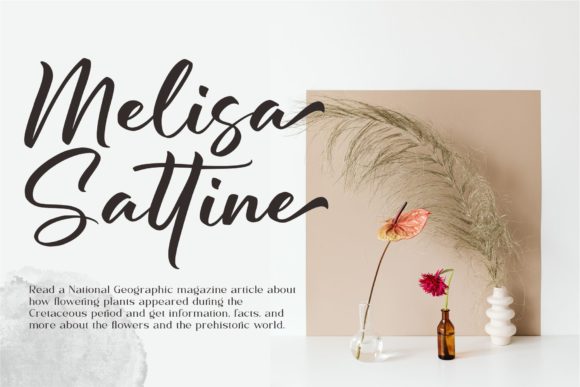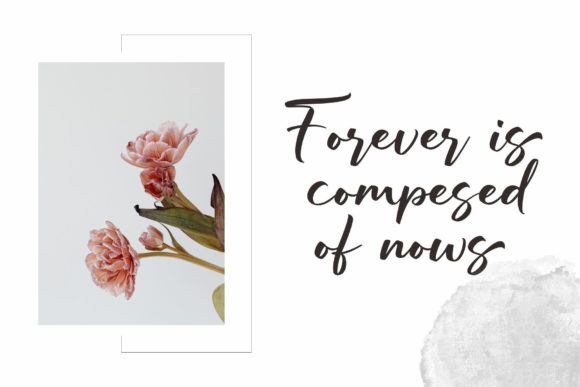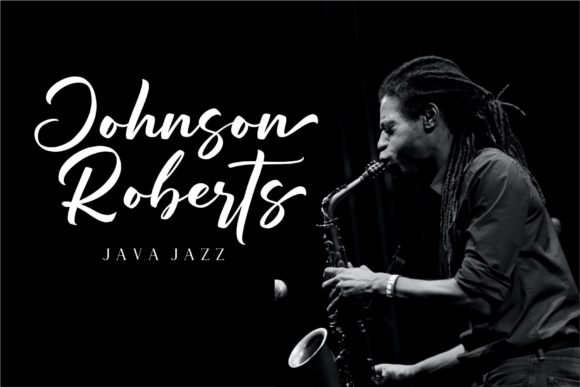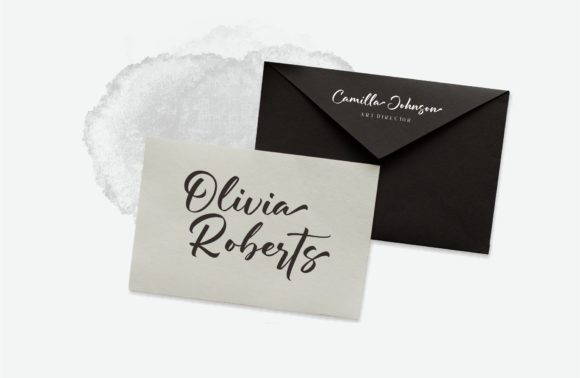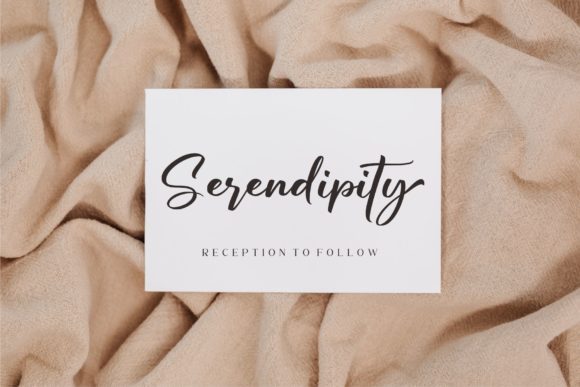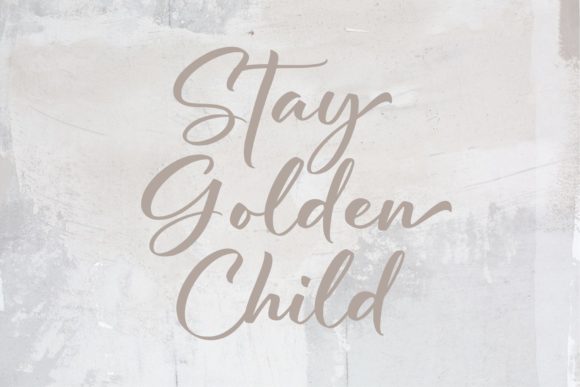
Discover the Enchanting Berdiolla Font: Elevate Your Designs with a Touch of Romance
In the world of typography, few fonts manage to capture the essence of elegance and romance as effortlessly as the Berdiolla Font. This enchanting handwritten script font has been making waves among designers and crafters alike, and for good reason. Its versatility, charm, and extensive range of applications make it an indispensable tool for anyone looking to add a touch of sophistication and whimsy to their projects.
The Charm of Berdiolla
Berdiolla is more than just a font; it’s an experience. Its handwritten nature gives it a personal and intimate feel, reminiscent of handwritten notes and love letters. This makes it perfect for a wide array of applications, from the creation of greeting cards and invitations to headlines and branding. The font’s ability to convey emotion and warmth is unparalleled, making it a favorite among designers who aim to create a connection with their audience.
One of the standout features of the Berdiolla Font is its incredible versatility. Whether you’re working on a romantic project, a creative branding campaign, or simply looking to add some flair to your digital content, Berdiolla adapts seamlessly. Its elegant strokes and beautiful swashes can elevate any design, making it stand out in a sea of more mundane typography.
Berdiolla Font comes with PUA (Private Use Area) encoding, a feature that makes it incredibly user-friendly. PUA encoding allows designers to access all the glyphs and swashes easily, providing the flexibility needed to create unique and intricate designs. This means you can experiment with different combinations of letters and swashes to add a personal touch to your work, without the hassle of complicated design software.
Applications of Berdiolla Font
The applications of the Berdiolla Font are as varied as they are exciting. Here are a few ideas to get you started:
- Greeting Cards and Invitations: Add a personal touch to your cards and invitations with Berdiolla’s elegant and romantic script.
- Branding and Logos: Stand out with a unique and memorable brand identity that captures the essence of your business.
- Headlines and Posters: Draw attention with eye-catching headlines and posters that exude charm and sophistication.
- Digital Content: Elevate your blog posts, social media content, and website with a touch of elegance and personality.
Why Designers and Crafters Love Berdiolla
Designers and crafters love the Berdiolla Font for its ability to add a touch of romance and whimsy to their projects. Its unique and elegant design makes it perfect for a wide range of applications, from traditional paper crafting to digital design. Moreover, the font’s PUA encoding makes it easy to use, even for those who are new to designing with fonts.
Tips for Using Berdiolla Font
The Berdiolla Font is a game-changer for designers and crafters looking to infuse their projects with a touch of romance and elegance. Its versatility, enchanting design, and user-friendly PUA encoding make it an indispensable tool in any creative arsenal. Whether you’re working on a greeting card, a branding campaign, or digital content, Berdiolla is sure to elevate your designs to new heights. So why wait? Discover the magic of Berdiolla Font today and transform your designs with its whimsical charm.